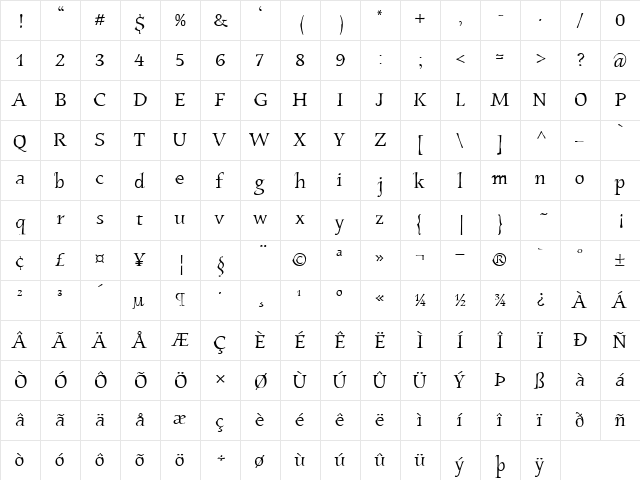
Estro Regular
Design Context for Estro Typeface
Estro is a composed and adaptable typeface that performs quietly and consistently across a wide range of design contexts.
Pro Tip: Pair Estro with a font of contrasting weight or personality to build a more expressive typographic hierarchy.